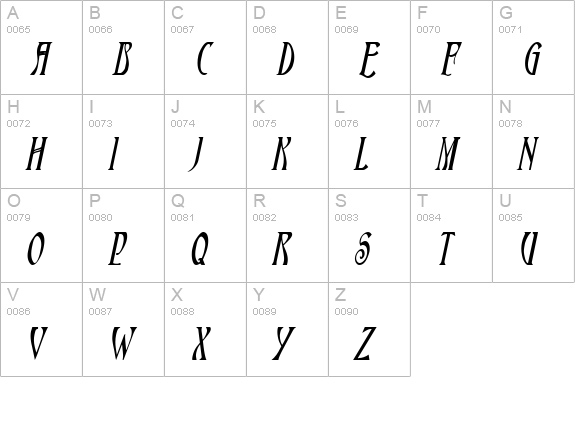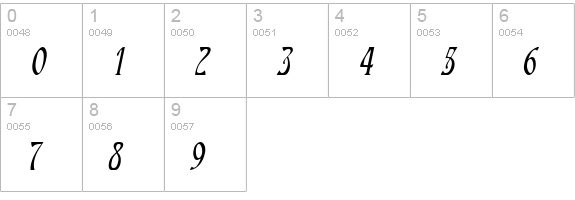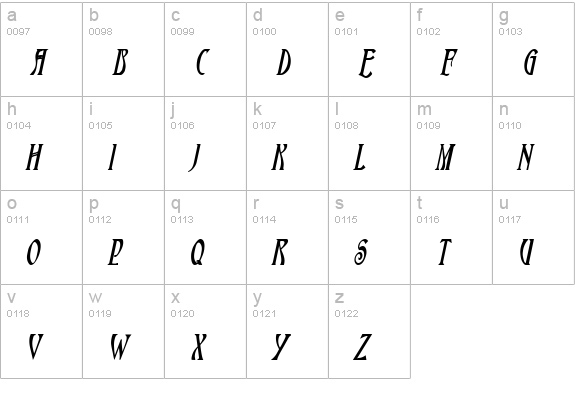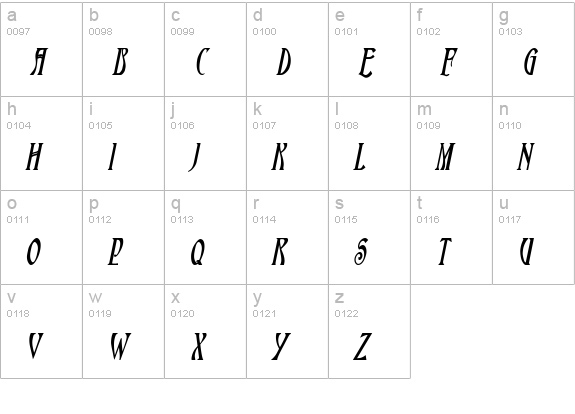
NouveauCondensed Bold Italic Font Details
NouveauCondensed Bold Italic is a strong, high-contrast, italic variant in the NouveauCondensed typeface family \xE2\x80\x94 well suited to headlines, attention-grabbing titles, and strong calls-to-action.
NouveauCondensed Bold Italic font exudes a sense of modern elegance and sophistication with its sleek and streamlined design. The bold and italic styling adds a touch of flair and drama to any text, making it perfect for headlines, titles, and branding materials. The condensed form of the font allows for efficient use of space, making it ideal for projects where space is limited. This versatile font is free to download at FontsMarket.com, where users can access this premium typeface without any cost. Whether you're working on a creative project, designing a website, or crafting marketing materials, NouveauCondensed Bold Italic font is sure to make a bold statement and elevate the visual appeal of your work. Download it today and add a touch of sophistication to your designs.